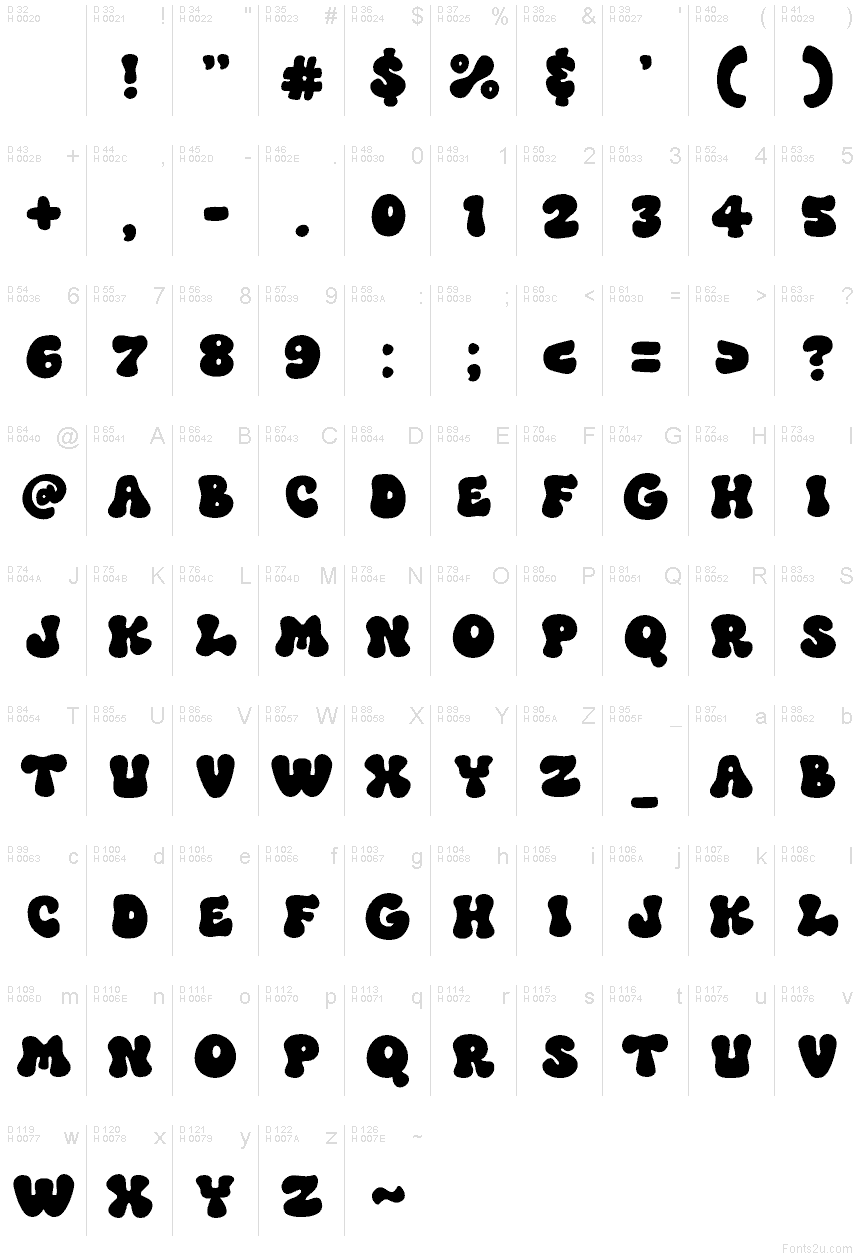
Voyage Rush font by Origin Type is a free groovy display typeface that looks like it’s been poured onto the page in thick, inky bubbles. Its swollen shapes, soft edges, and slightly wobbly rhythm create a funky, lava-lamp energy that grabs attention instantly without feeling harsh. The letters pack together like squishy stickers, giving every word a bold, bouncy silhouette that feels playful yet unmistakably loud.
Using Voyage Rush, your text feels more like a logo than a line of copy, which makes this free font a natural fit for posters, festival or party flyers, retro-themed branding, snack or drink packaging, bold social graphics, and sticker designs. It shines at large sizes where the chunky curves can really breathe; pair it with a clean, narrow sans serif for smaller text to keep your layouts fun but readable.